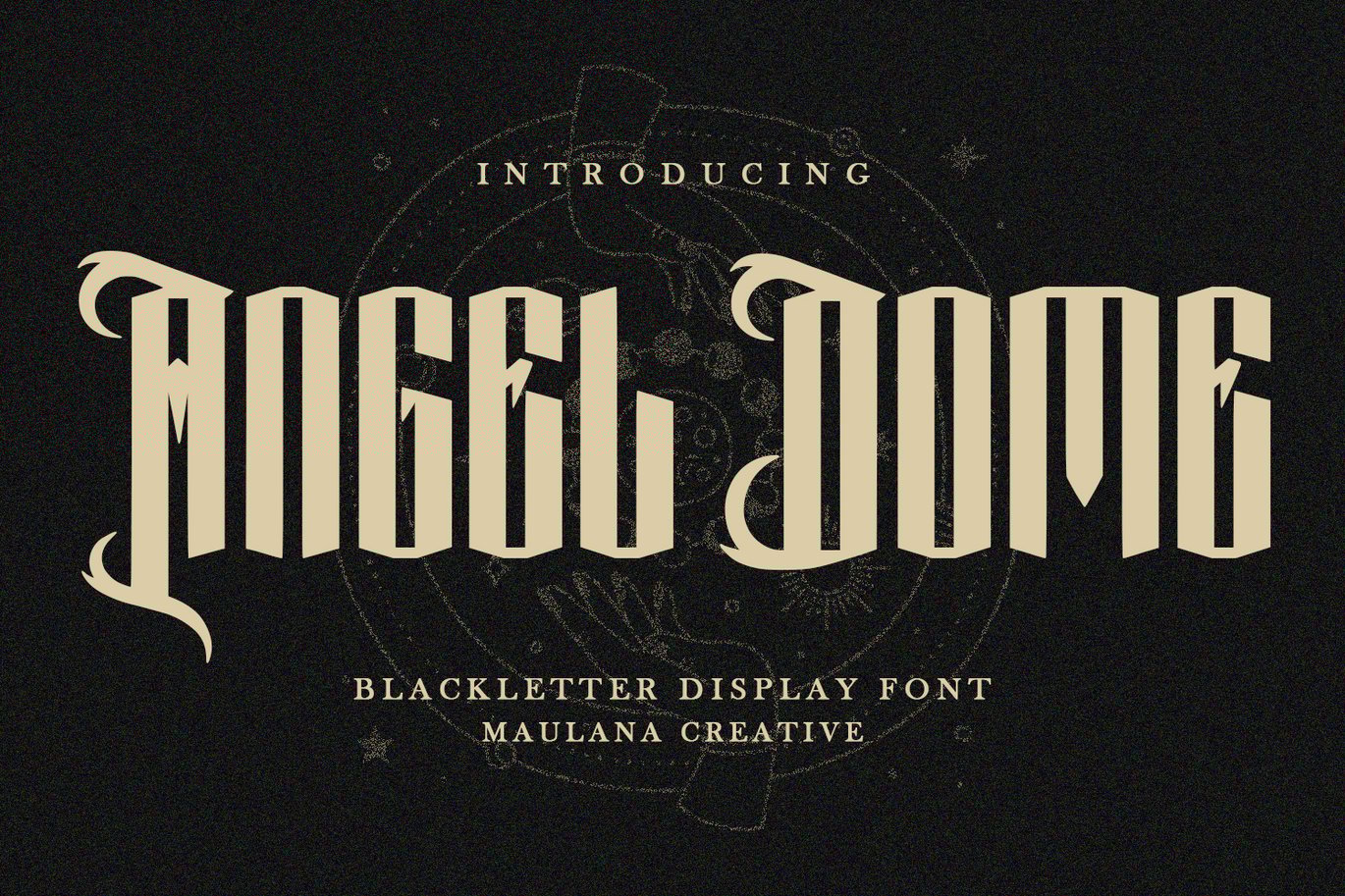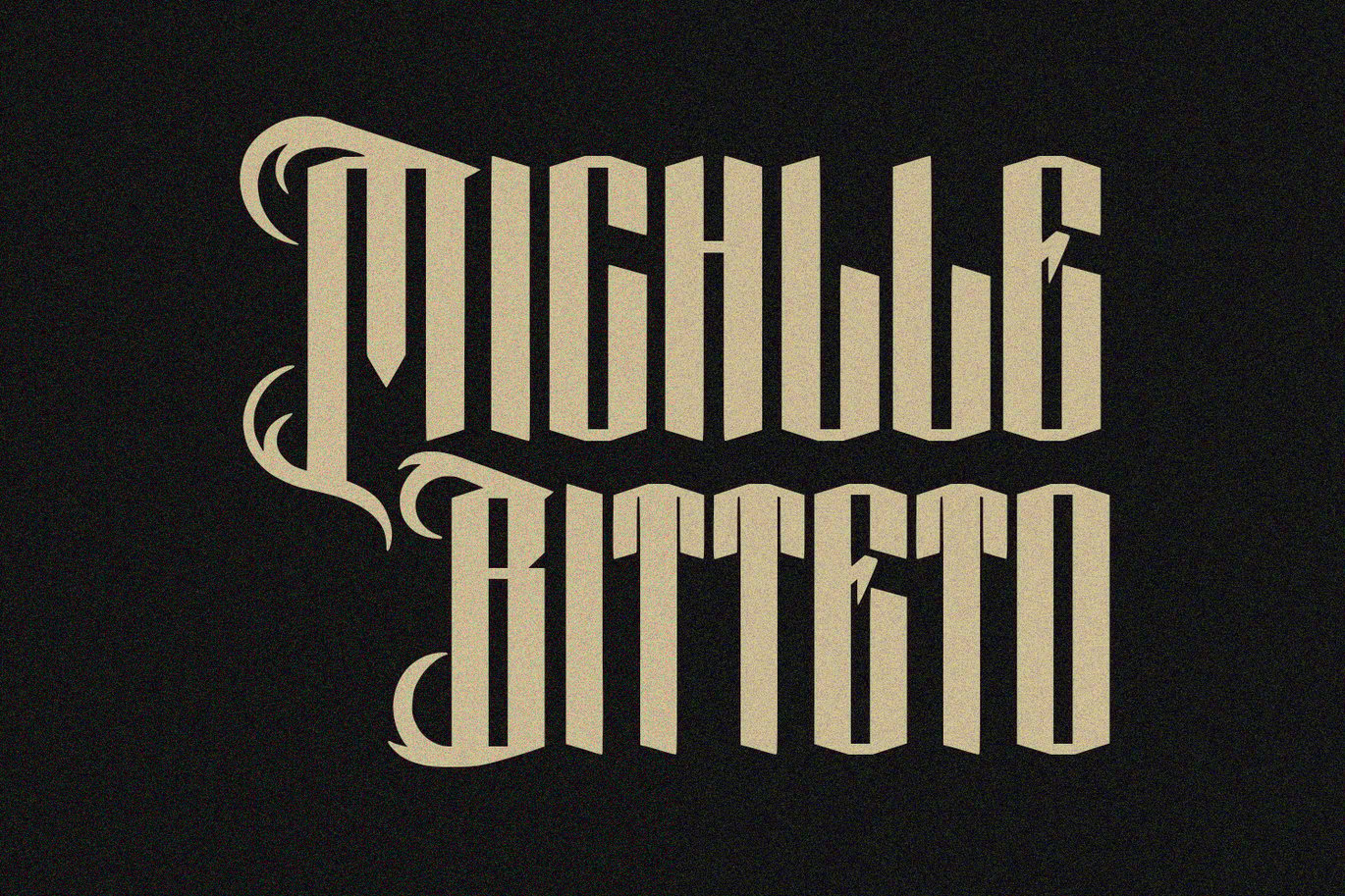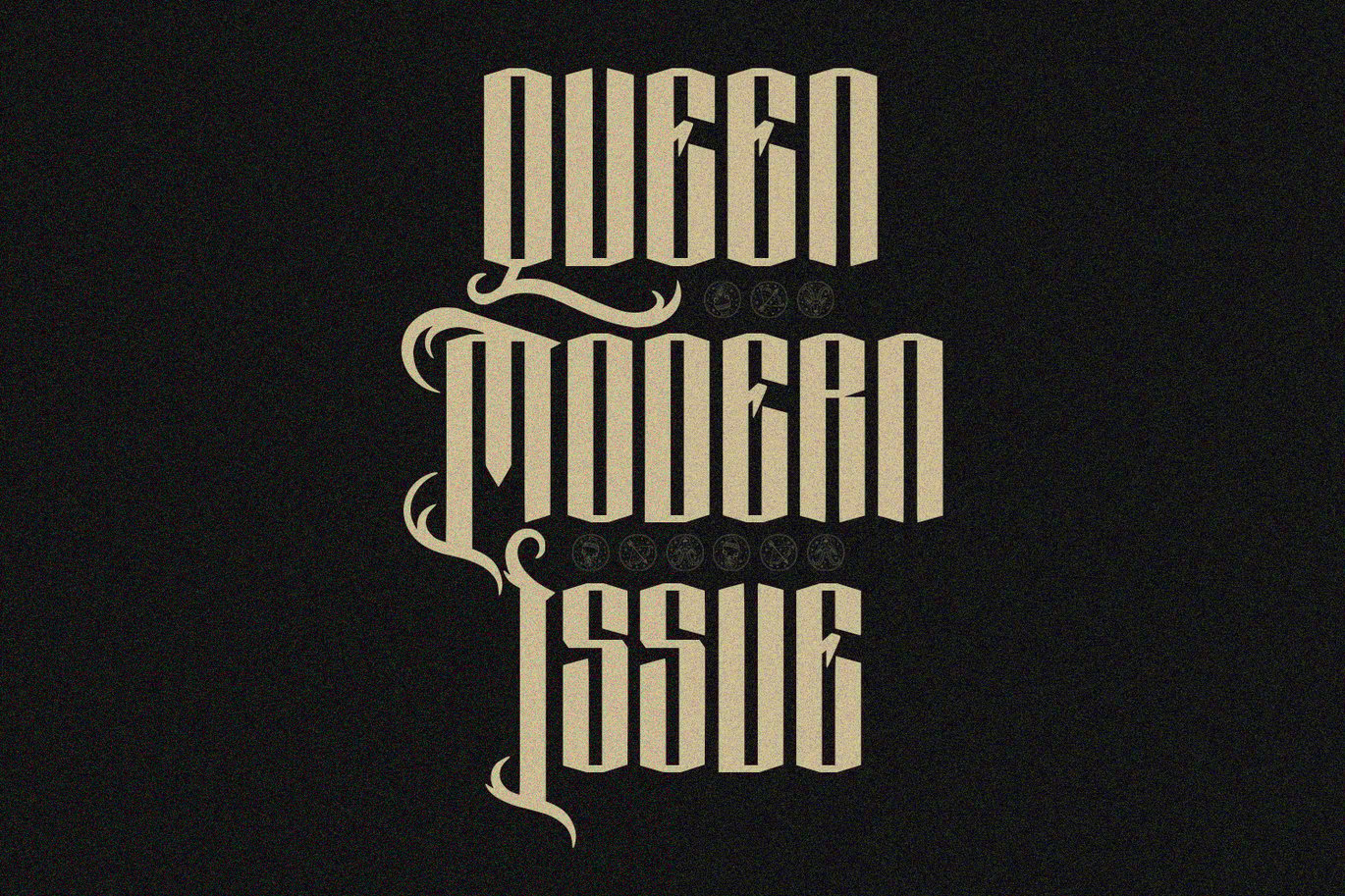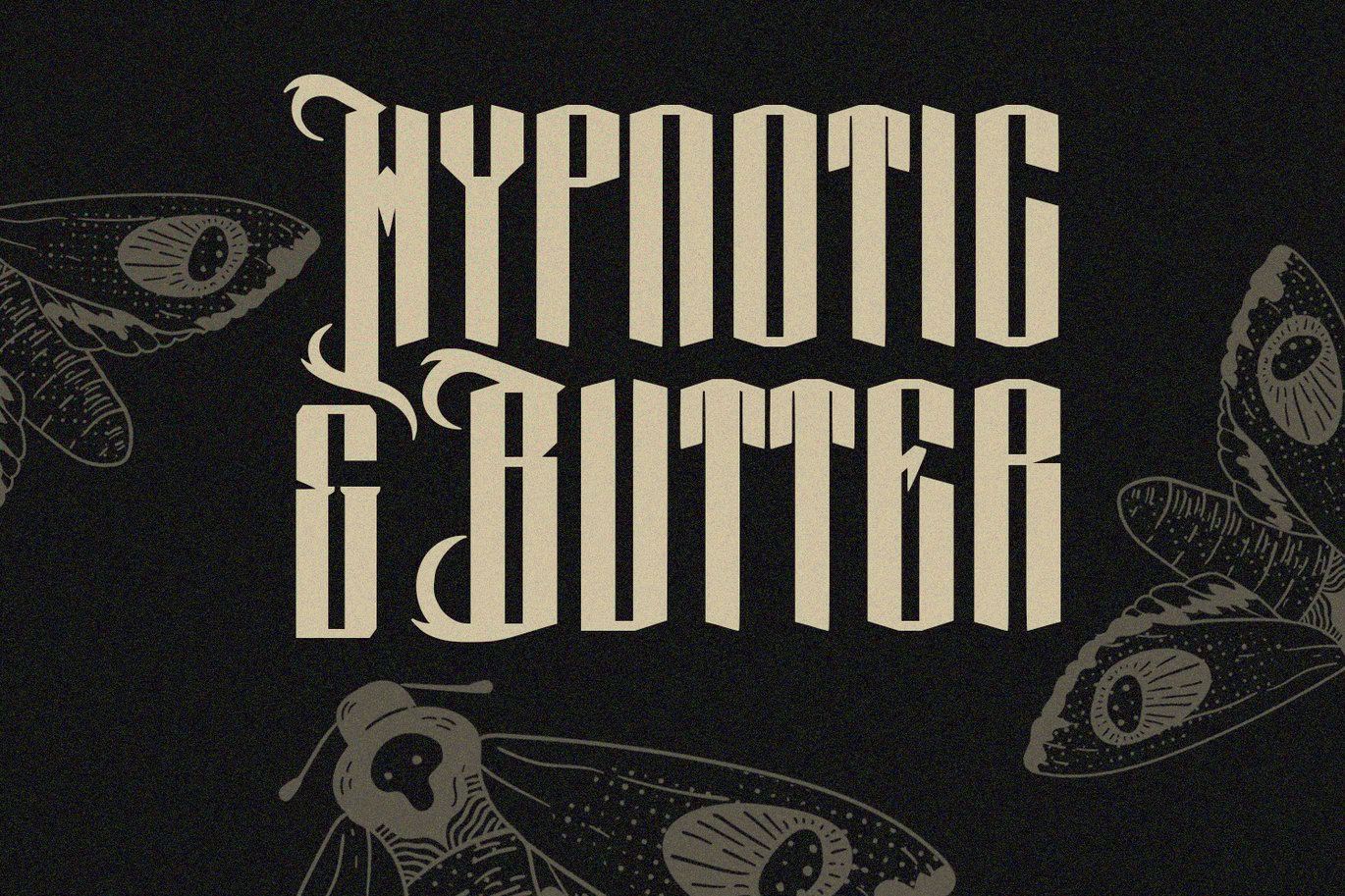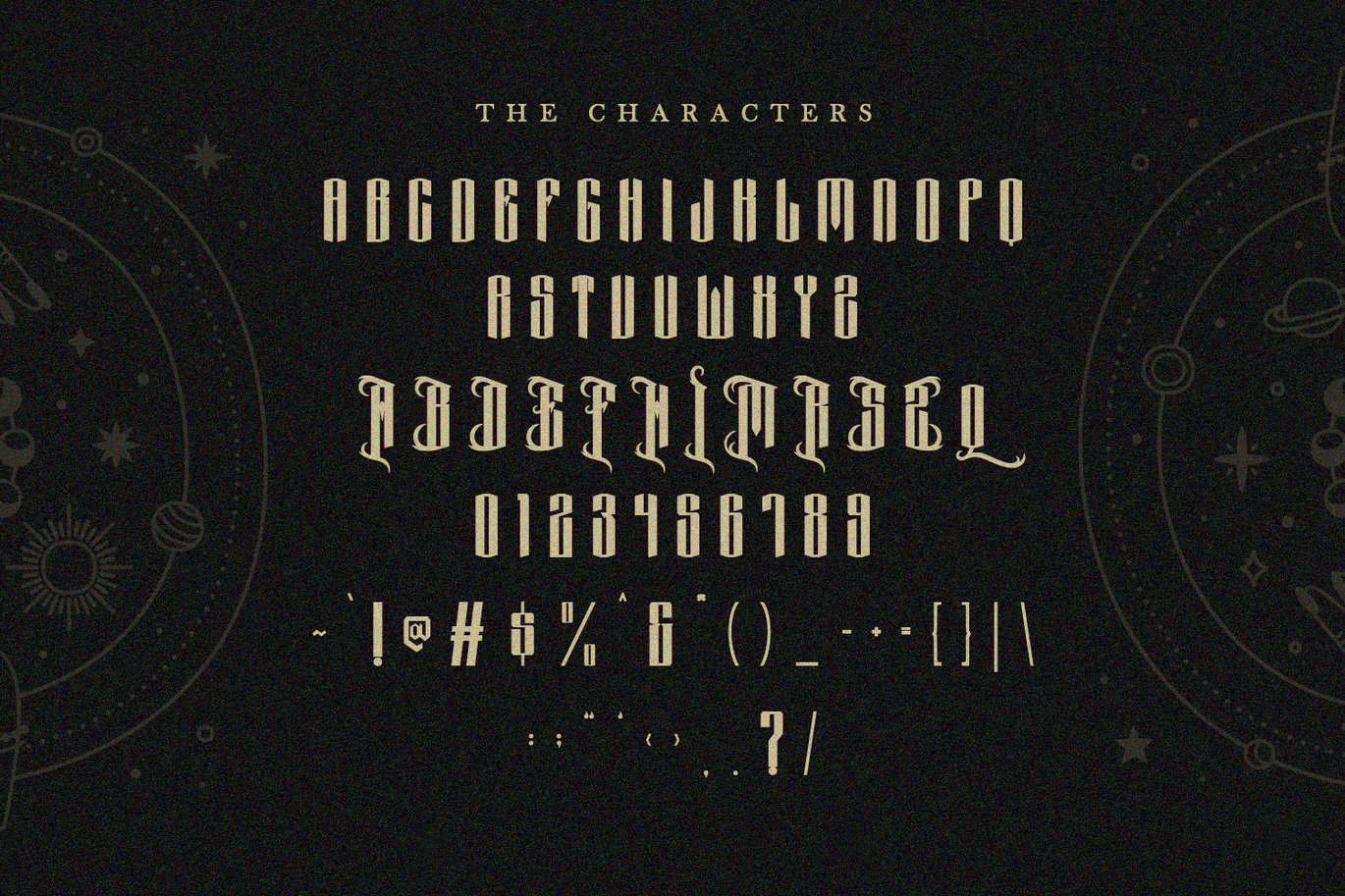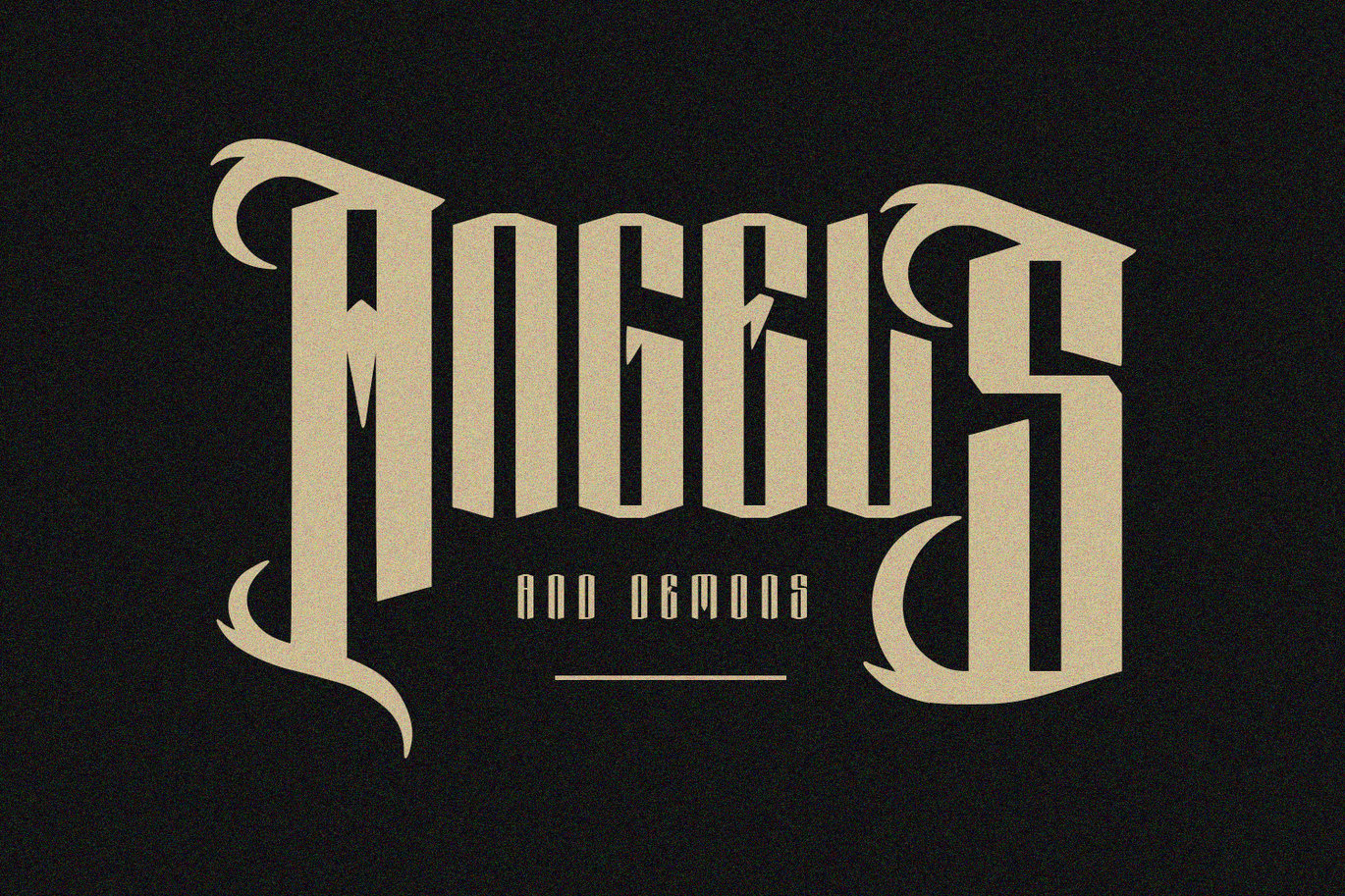
Angel Dome Blackletter Display Font
Angel Dome blackletter display font. Heavy stroke, vintage character with alternates. To give you an extra creative work. Angel Dome display font support multilingual language. This font is good for logo design, Social media, Movie Titles, Books Titles, a short text even a long text letter and good for your secondary text font with script or serif. Make a stunning work with Angel Dome blackletter display font.